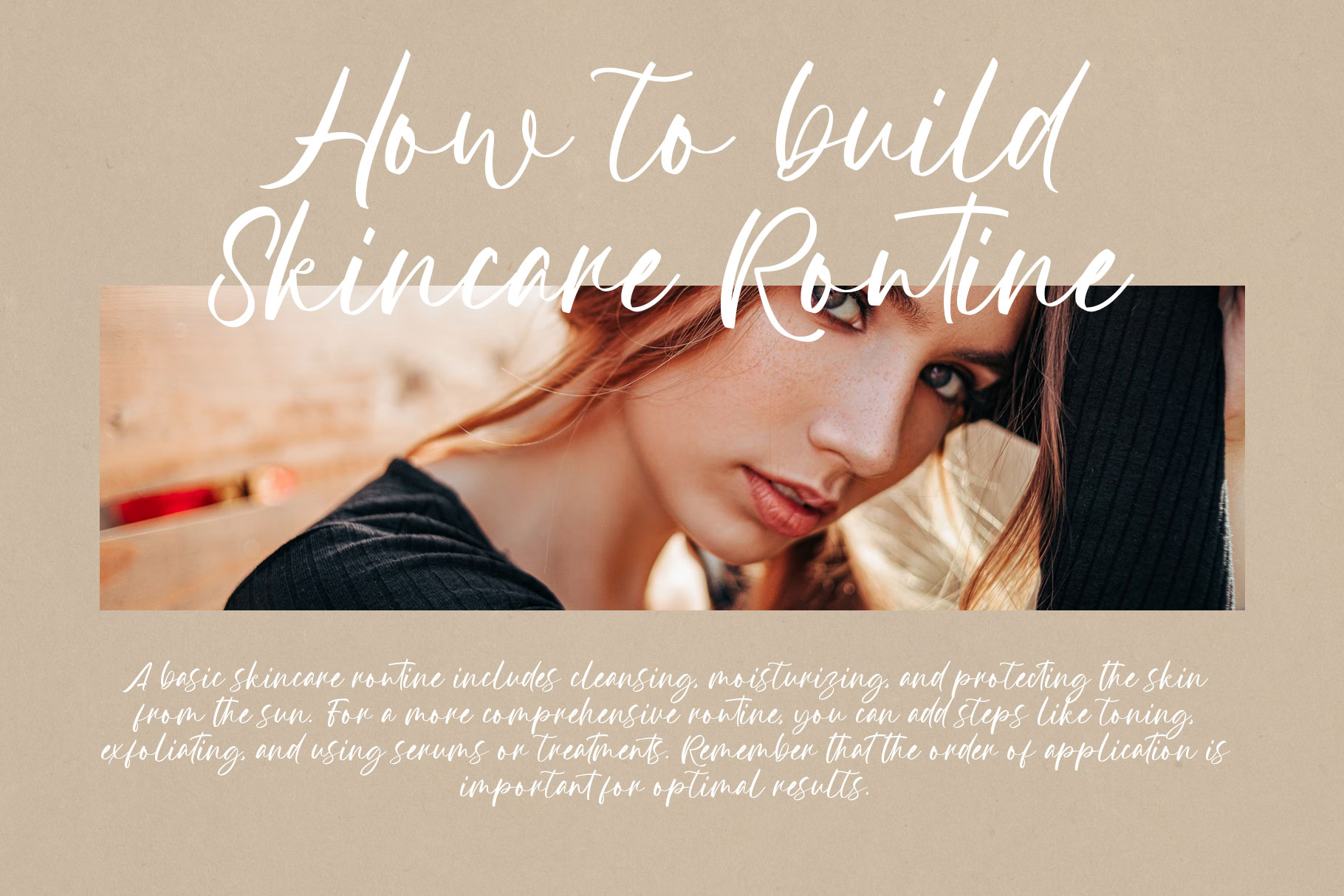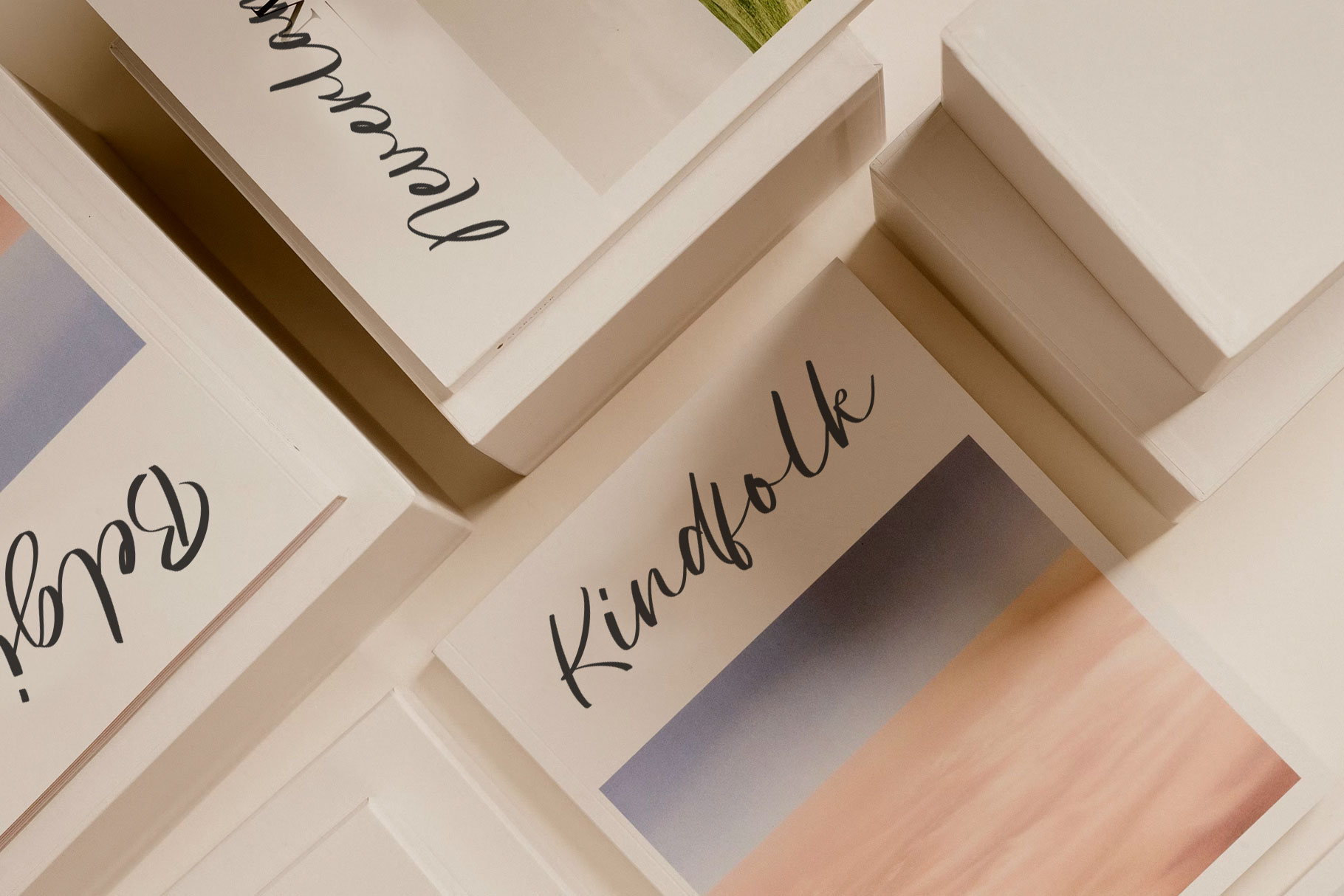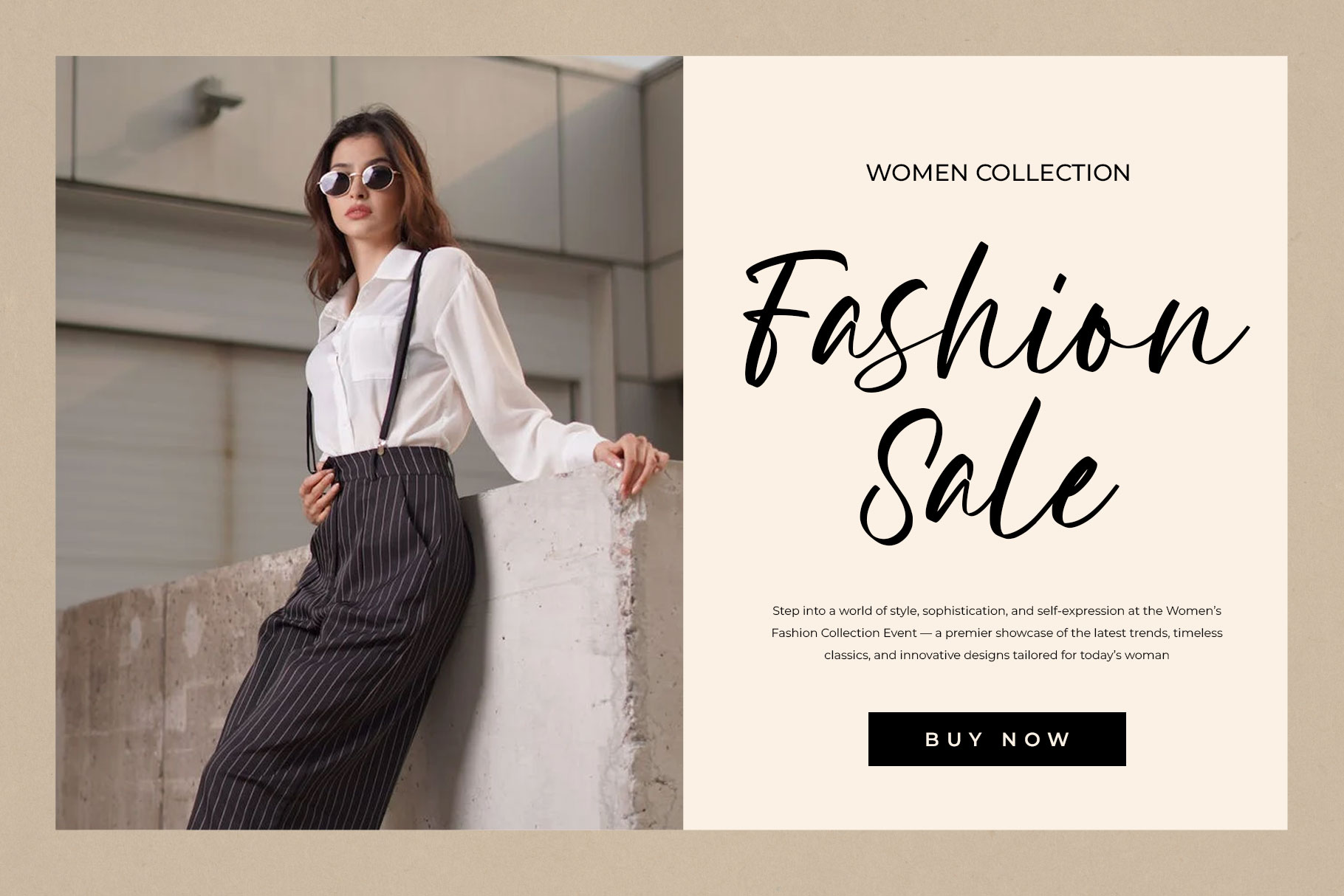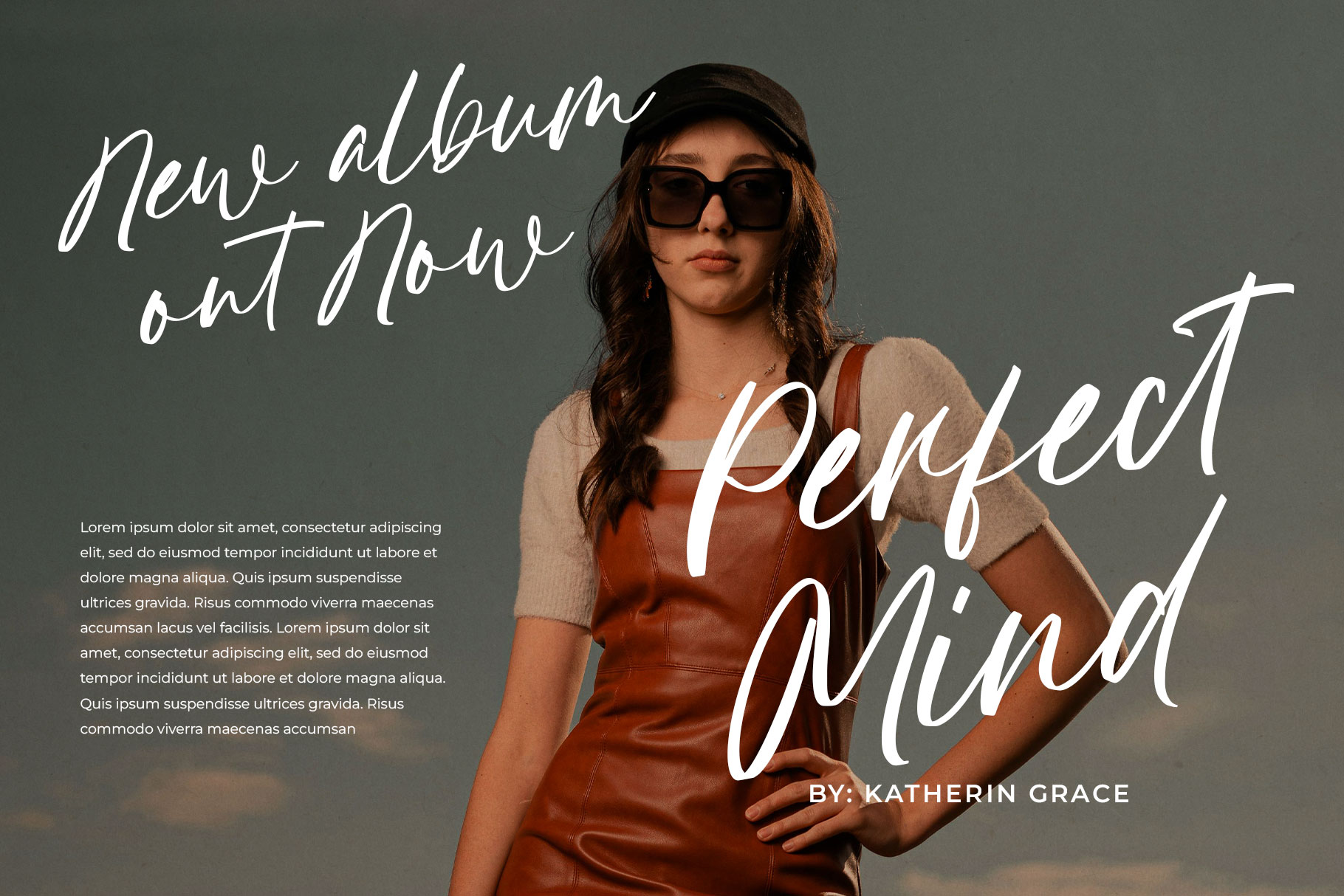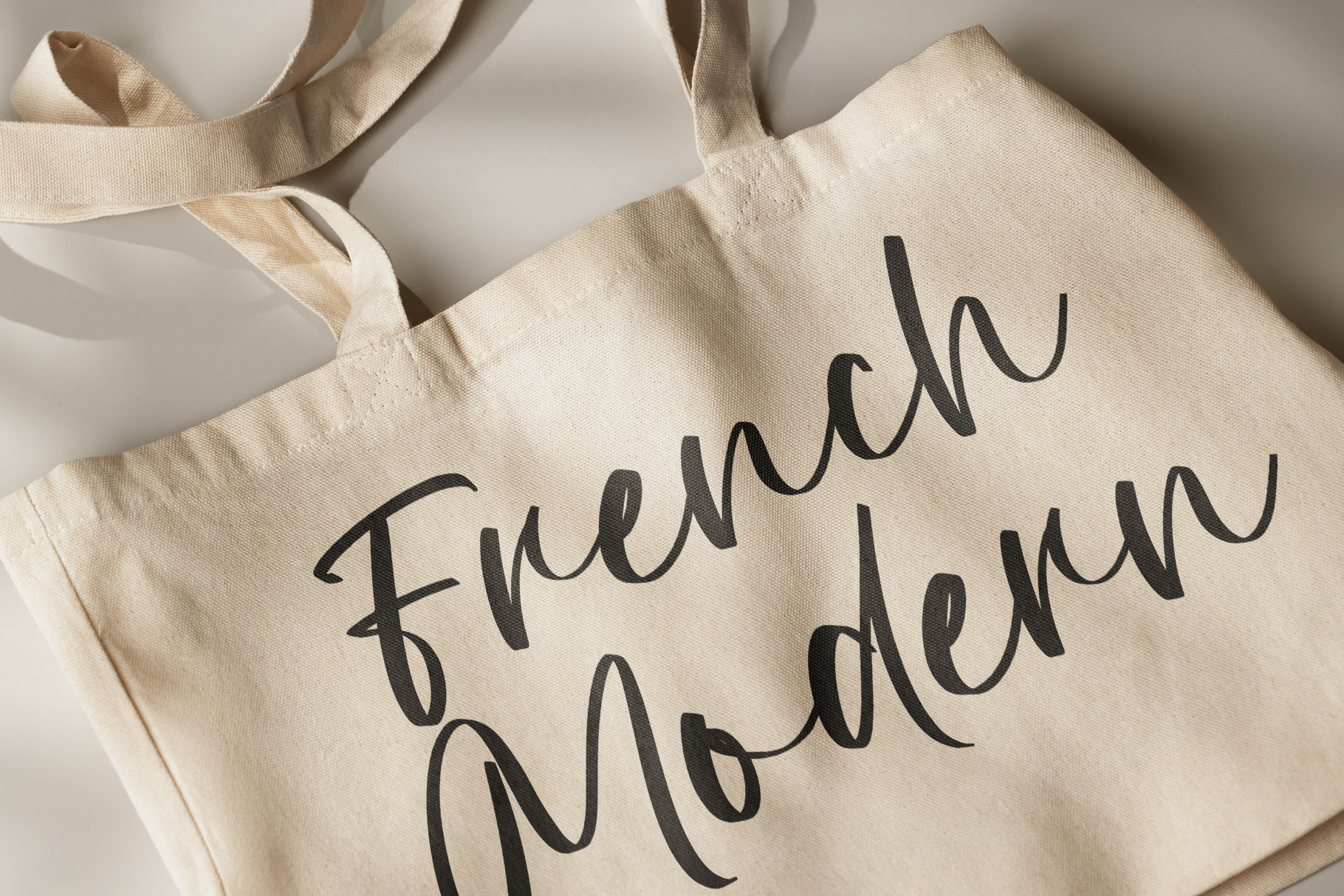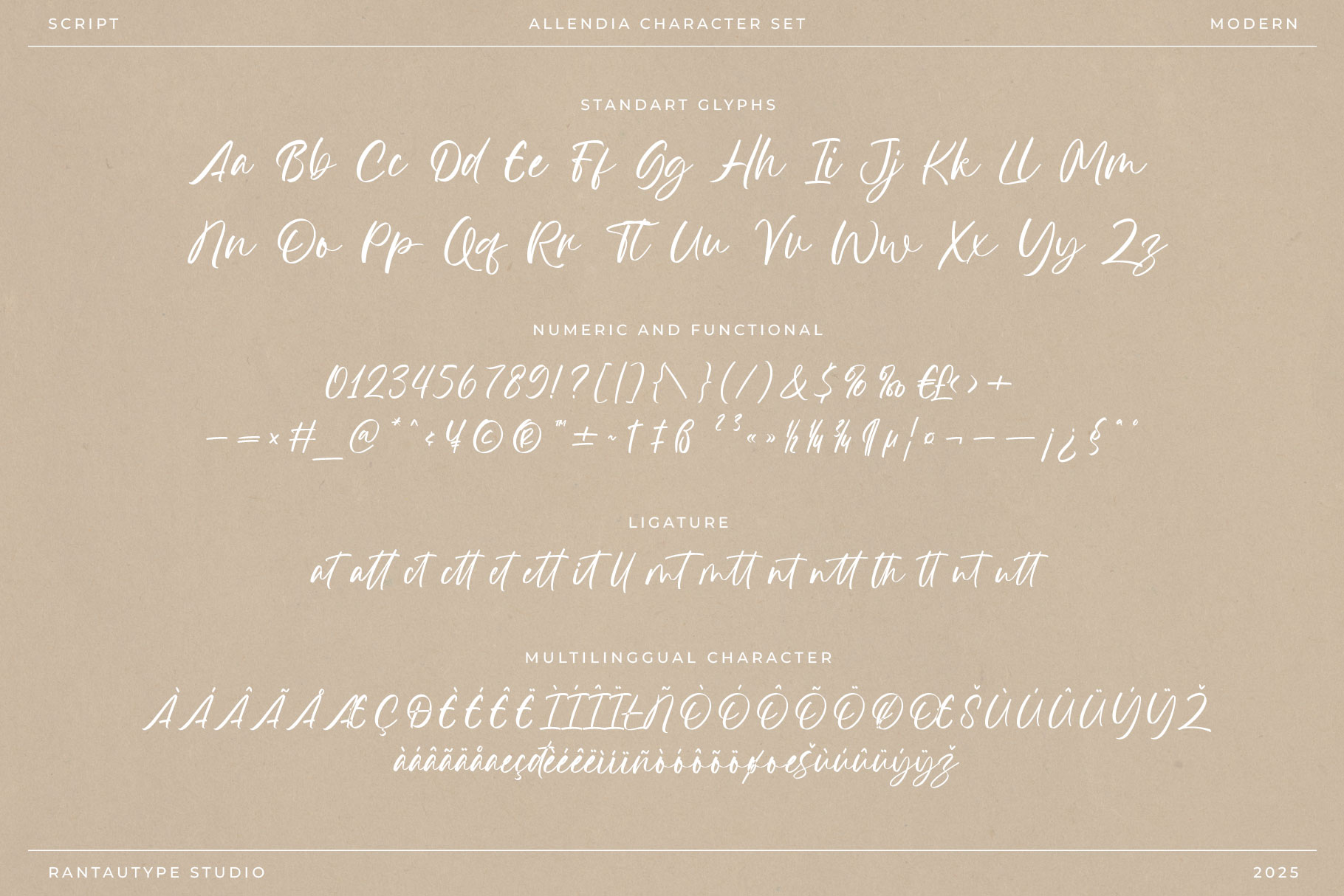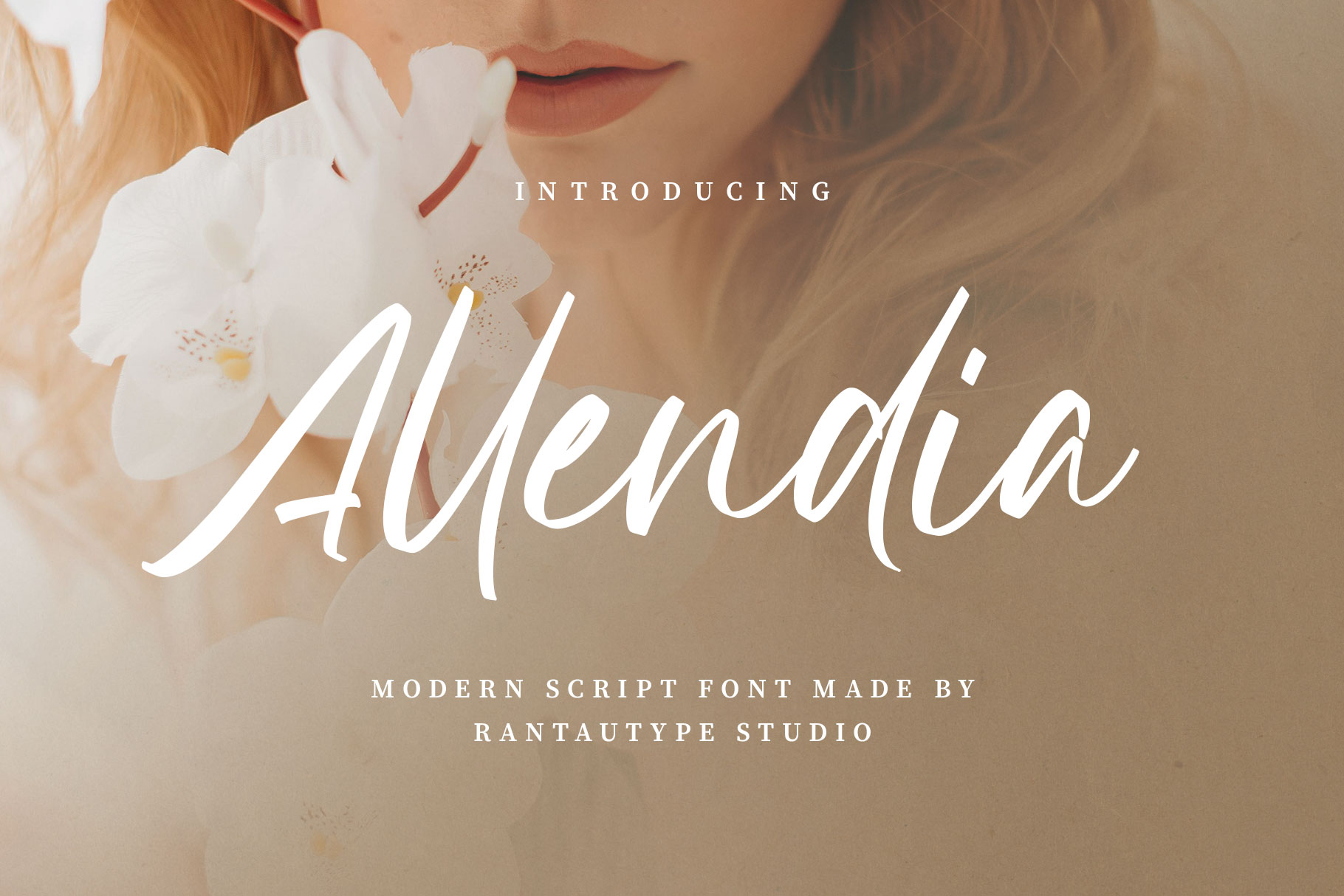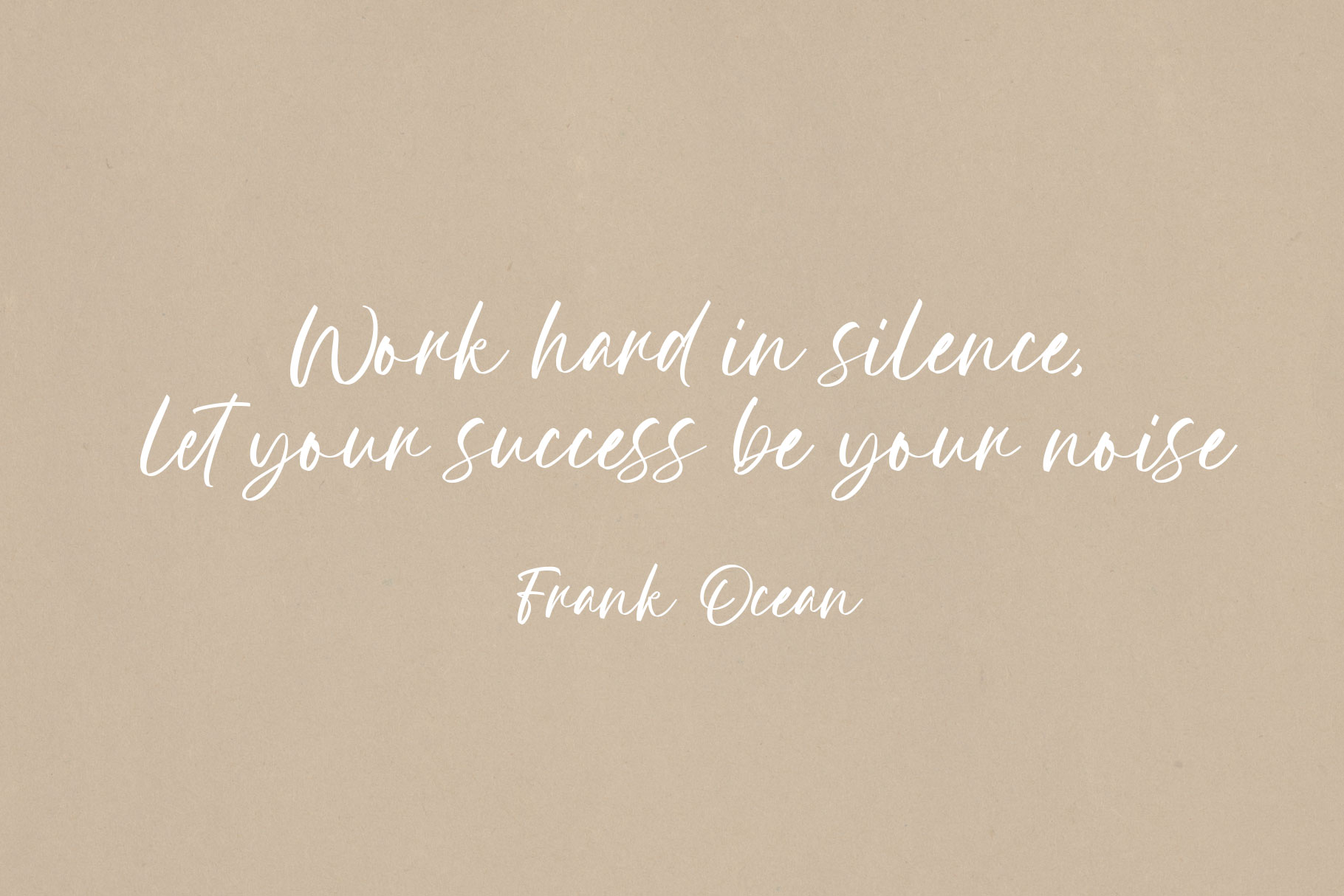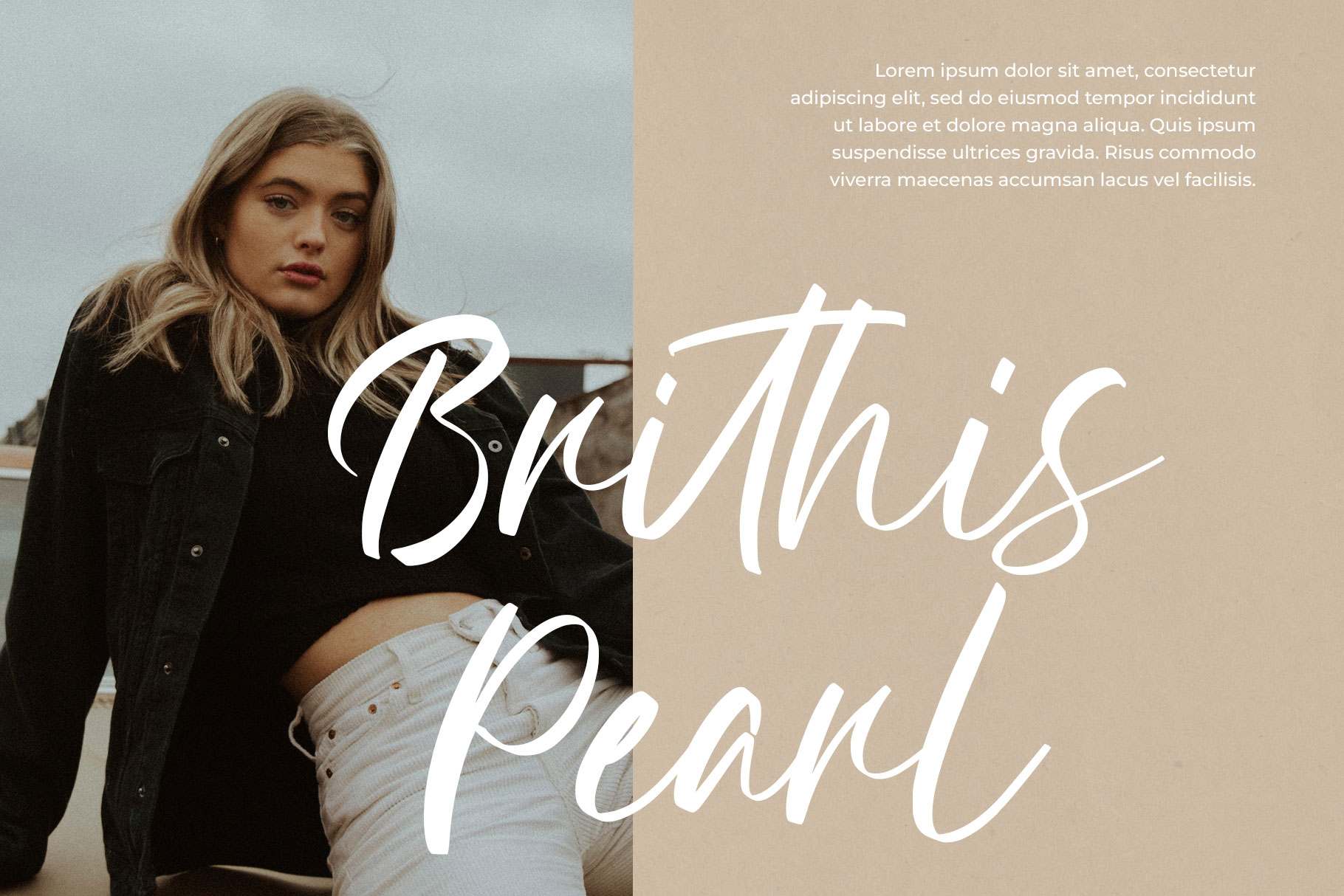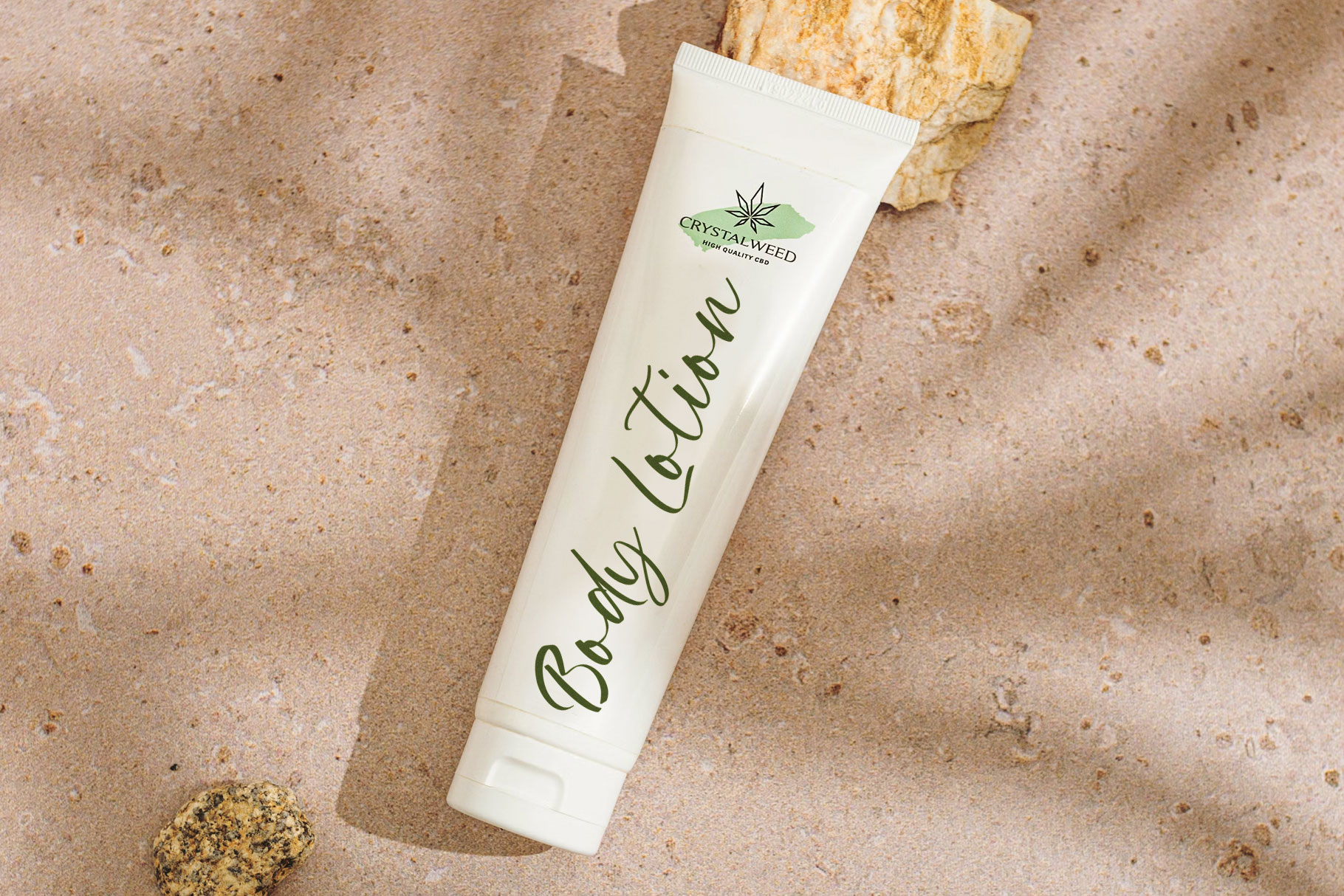
Allendia Modern Script Font
Allendia is a beautiful script font exudes elegance and sophistication, often characterized by fluid, cursive strokes that mimic modern calligraphy. Alledia come with script fonts enhance visual identity, evoke emotion, and add a luxurious touch to any composition.
Allendia is a perfectly choice for any creative endeavor, creating, modern, lifestyle design such as logotype, title, cover, branding, invitations, wedding designs, display and magazine, social media posts, advertisements, printed quotes, product packaging, corporate brand, product designs, labels, photography, watermarks, special events and any other project with modern touch.